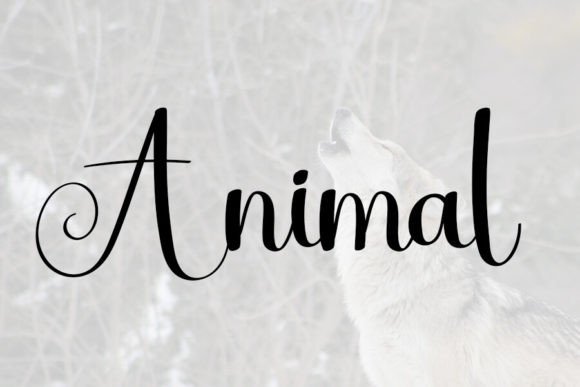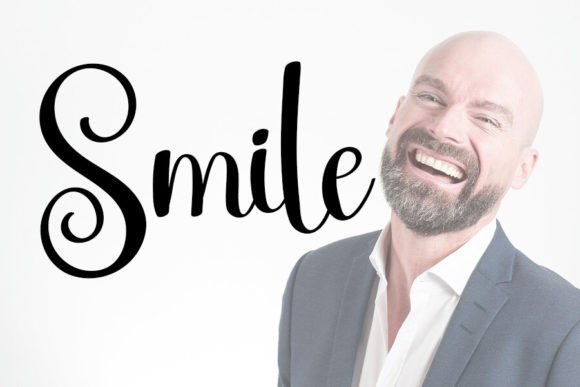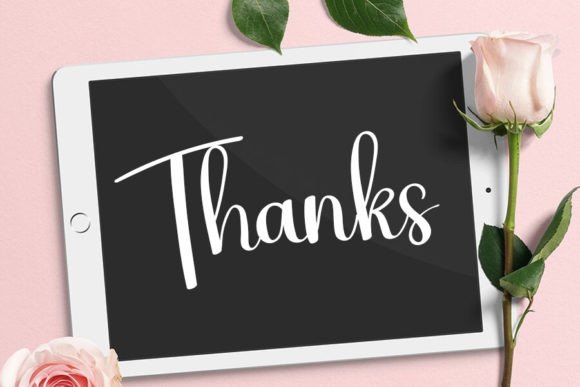
Unleash Your Creativity with the Elegant Autography Font
Have you ever found yourself stuck on a design project, searching for the perfect font to elevate your work? We’ve all been there. But what if I told you that the solution lies in a beautiful, refined script font that exudes elegance and sophistication? Welcome to the world of Autography Font, a game-changing tool for designers seeking to add a touch of modernity to their creations.
Autography Font is more than just a font – it’s a statement piece that can be used for a wide range of applications, from logos and branding to invitations and social media posts. Its classy and modern look makes it an invaluable asset for designers, allowing them to create stunning visuals that leave a lasting impression. With Autography Font, the possibilities are endless, and the results are nothing short of breathtaking.
Autography Font Key Features
- Unique Characteristics: Autography Font features a distinctive, handwritten style with fluid connections between letters, giving it a personal and artistic touch.
- Kerning and Ligatures: Autography Font includes carefully designed kerning pairs and ligatures to ensure smooth letter spacing and a polished, professional look.
Autography Font Review
Overall, I found the Autography Font to be a unique and intriguing addition to any design project. ✨ One of the standout features is its elegant, handwritten feel, which is perfect for creating a personal and approachable vibe. The font also boasts a wide range of styles, from formal to casual, making it suitable for various applications.
The Autography Font has a lot of versatility, and it’s great for:
- Creating eye-catching headings and titles ✨
- Designing invitation cards, posters, and other promotional materials ✨
- Adding a personal touch to digital products and websites ✨
However, I did encounter a few limitations with the Autography Font:
- ⚠️ Limited availability of some styles and weights, which can make it difficult to achieve a consistent look
- ⚠️ Some characters may not render properly in certain font sizes or resolutions, which can be frustrating to work with
Despite these limitations, I would still recommend the Autography Font for designers looking for a unique and creative solution. With a little experimentation and patience, you can unlock its full potential and create some truly stunning designs.
Autography Font is ideal for:
- Social media posts and graphics.